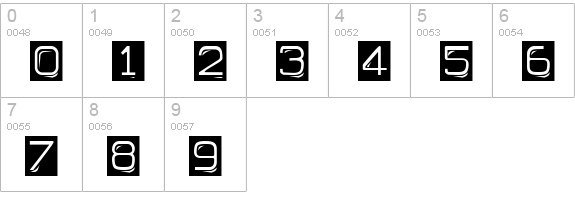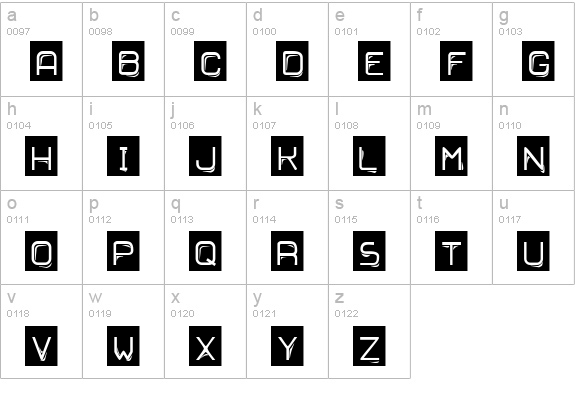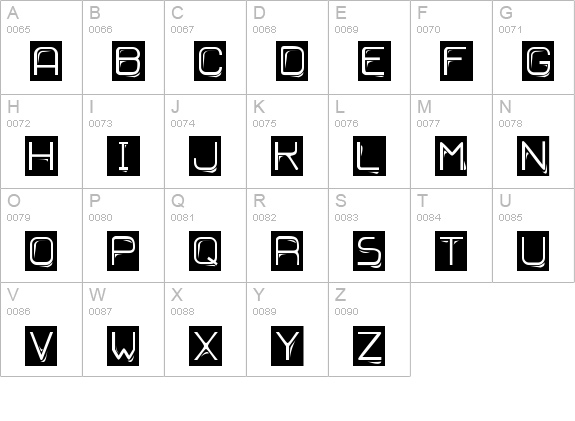
Ruban Dismoi Tryout Font Details
Ruban Dismoi Tryout font is a stunningly unique and modern typeface that will make your designs stand out. With its bold, eye-catching style and sleek lines, this font is perfect for creating striking headlines, logos, posters, and more. The contrasting thick and thin strokes give it a dynamic and energetic feel, making it ideal for projects that need a touch of creativity and flair. Best of all, Ruban Dismoi Tryout font is available for free download at FontsMarket.com. Whether you're a designer looking to add a fresh new font to your collection or a hobbyist wanting to spice up your projects, this font is the perfect choice. Don't miss out on the opportunity to enhance your designs with this fantastic free font today!